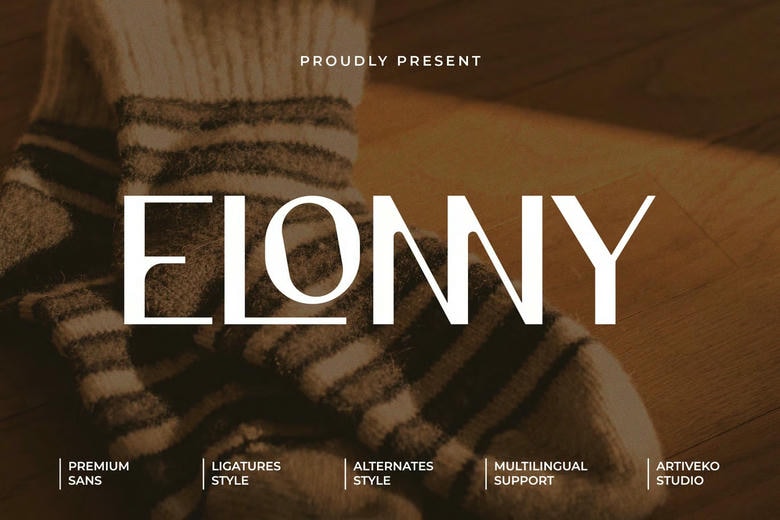
Elonny Font
Elonny is a high quality Sans Serif font that is designed by Artiveko and is available for free download and personal use. The free version provides all uppercase and lowercase letters and a few special characters too.
Elonny Font is perfect for branding projects, Logo design, Clothing Branding, product packaging, magazine headers, or simply as a stylish text overlay to any background image.
Elonny Minimalist Sans Serif Font